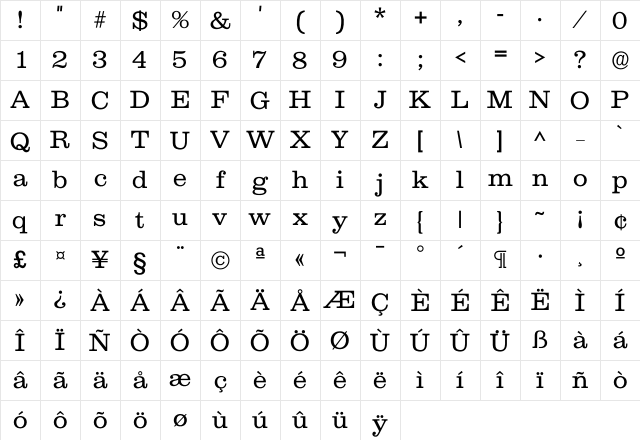
Complete Clarxndon Light glyph index. Displaying only characters natively supported by Clarxndon Light font.
Clarxndon is a composed and adaptable typeface that performs quietly and consistently across a wide range of design contexts. Its slender proportions lend an understated elegance to any composition.
Pro Tip: Use Clarxndon in both headline and body roles to test its range before committing to a single application.